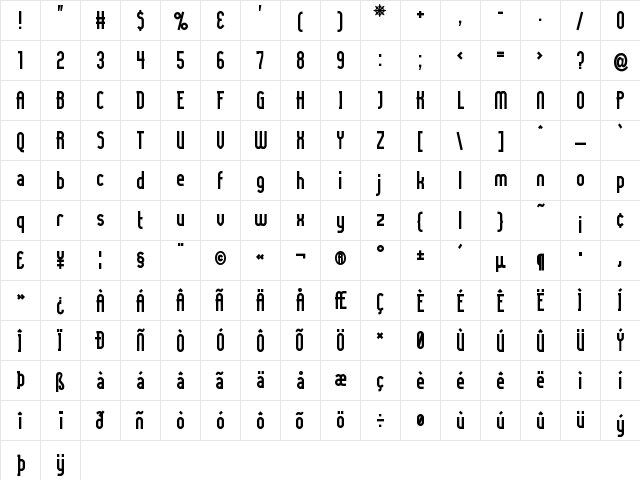
Lady Ice Bold Font Preview
Lady Ice Bold
Lady Ice Bold Font Details
| Designer | Graham Meade, CybaPee & Apostrophe |
Design Context for Lady Ice Typeface
Lady Ice offers clean, dependable letterforms without strong stylistic allegiance, making it a practical choice for designers who need flexibility. Its bold stroke weight gives it real presence on the page.